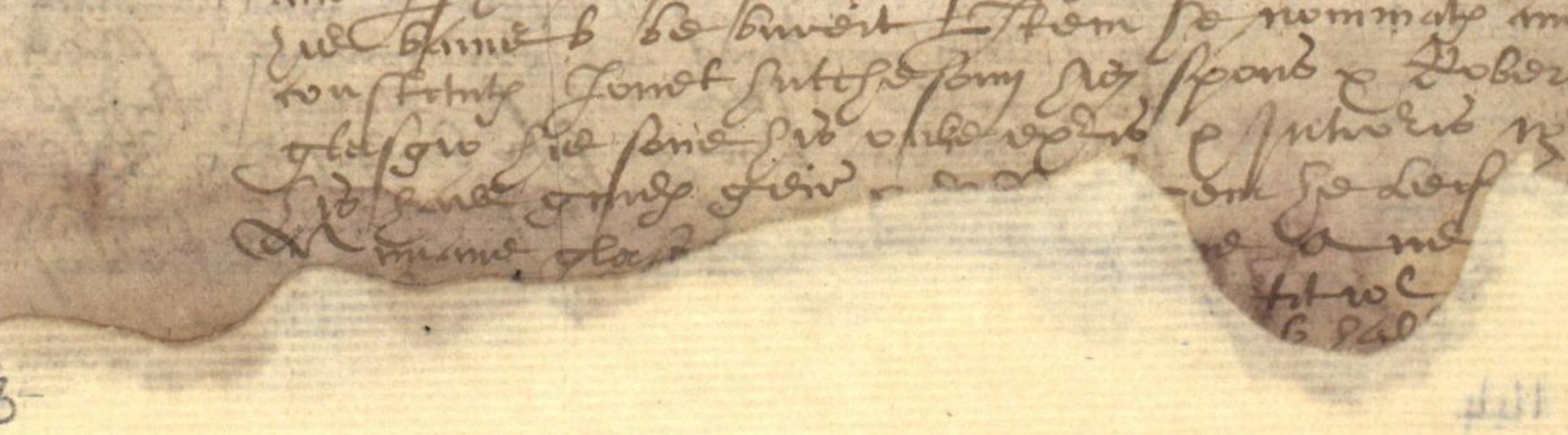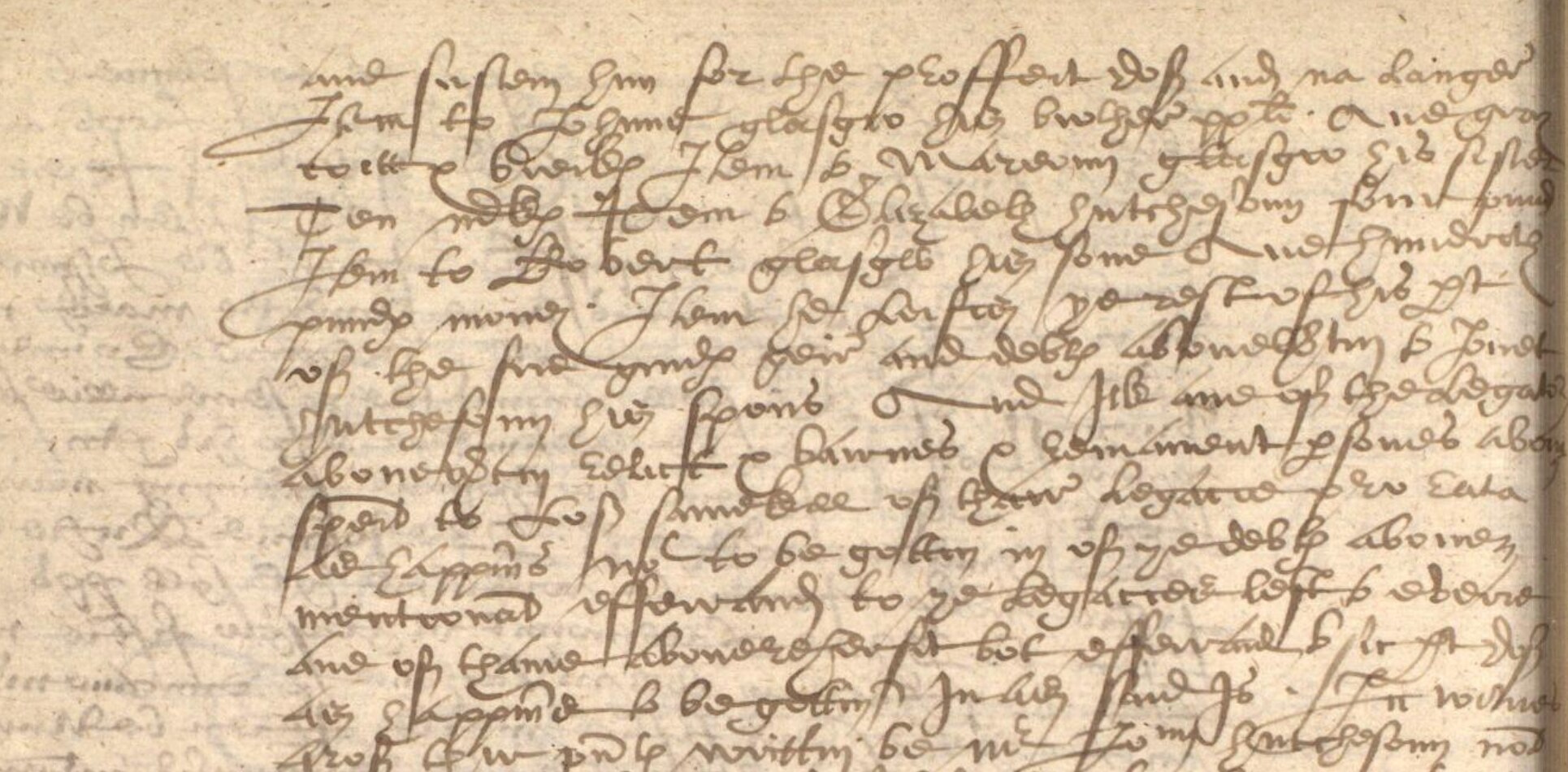
Ninian Glasgow's latter will names a spouse and son, then separately names a brother and sister. A torn lower passage cannot safely turn William into another child, and the brother John is not securely identified with Glasgow-1030.
New to secretary hand? Start with the shapes.
Follow the writing line. Ascenders rise above small letters; descenders fall below them. A neighbouring line can cross the word you are reading.
Count the short strokes. These are called minims. Joined i, m, n and u shapes can be ambiguous; compare a clear repeated word by the same clerk rather than guessing from a modern alphabet.
Separate reading from expansion. A contraction is not a fully written modern word. Square brackets retain doubtful letters or editorial additions. A familiar legal formula is a clue, not permission to fill a gap.
Then assess the relationship. Reading a name securely is not the same as proving kinship. Look for the actual role words and who they refer to.
Choose a name or relationship below. Compare the original ink, a paper-free view and the same spelling in a secretary-hand teaching font. Open the reasoning only when you need it.
01His sone: long strokes and short minims in the same wordInspect reading
Proposed readinghis sone
Robert's name and the relationship appear in the same testament that expressly names a brother and sister. Here the long form in sone crosses the space occupied by another line. The coloured guides are selective; uncoloured intersections are left visible.
03 Same spelling, another hand Joscelyn teaching font
The white-background view suppresses paper colour; reviewed focus boundaries exclude separable neighbouring fragments where available. It does not restore missing strokes. Colour follows retained source pixels inside proposed letter groups, not a reconstructed pen path. Ambiguous crossings remain neutral where reviewed; other crossing ink may still belong to another line.
The font repeats the proposed spelling, not this clerk's handwriting. Similarity is a teaching aid, not confirmation; uncertainties remain in the reading above.
Locate the word in its passage Original contextRobert's name and the relationship appear in the same testament that expressly names a brother and sister. Here the long form in sone crosses the space occupied by another line. The coloured guides are selective; uncoloured intersections are left visible.Reading, meaning and uncertainty
Expansion: his son
Confidence: High for the relationship in the complete legacy clause.
Evidence boundary: Robert's sonship is explicit. It must not be extended to the physically damaged William passage elsewhere in this testament.
Item he nominat and constitut Jonet hutchesoun his spous & Robert glasgow his sone his onlie ex[ecutouris]
In modern English
He nominated and appointed Jonet Hutchesoun, his spouse, and Robert Glasgow, his son, as his only executors.
How to read it
Read the first line across Jonet Hutchesoun, his spous and Robert, then return left on the next line for glasgow his sone. The relationships do not have to be inferred from executorship: his spous and his sone are written directly beside the names. Executorship alone could have described trusted non-kin.
What this establishes
Jonet Hutchesoun was Ninian's spouse and Robert Glasgow was his son.
What it does not establish
This clause does not establish Jonet Hutchesoun as Robert's mother.
Slow reading
Inspect the words, not just the conclusion.
Compare the original strokes with the proposed reading. Tall or trailing strokes from neighbouring lines may enter a sample; the notes distinguish what is visible from what remains uncertain.
Phrase 01
Jonet hutchesoun
Jonet Hutchesoun
Magnified from the same manuscript image. No letters have been redrawn.
Look at the strokes
The capital J descends below the line before curving back.
Jonet ends in a tall crossed t.
hutchesoun contains a tall h and tightly connected middle strokes, finishing with a compact -oun.
Reading limits: The name is clear; the box includes crossing strokes from the closely spaced line above.
Phrase 02
his spous
his spouse
Magnified from the same manuscript image. No letters have been redrawn.
Look at the strokes
his is a short possessive separated from the following noun.
spous begins with a long s and a deep p descender.
The terminal s extends in a descending sweep.
Reading limits: The spouse wording is explicit; it does not state that Jonet was Robert's mother.
Phrase 03
Robert
The reviewed record names Jonet Hutchesoun as spouse, Robert as son, John as brother and Marion as sister. Damaged wording does not safely prove William as a son.